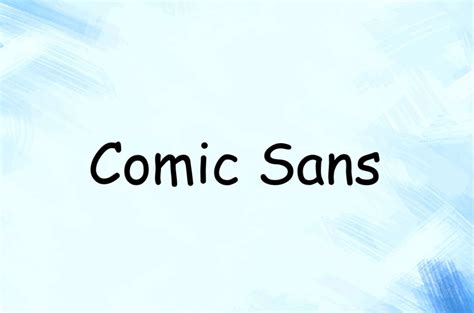
Comic Sans Font Copy Paste . Web our comic sans font generator is designed to help you easily convert your text into the beloved comic sans font, perfect for adding. Learn how to use it, where to use it, and what are the pros and.
Web transform your text into captivating masterpieces with our innovative font style text effect generator. Web craft playful and casual comic sans fonts with our generator. Learn how to use it, where to use it, and what are the pros and.
Web our comic sans font generator is designed to help you easily convert your text into the beloved comic sans font, perfect for adding. Learn how to use it, where to use it, and what are the pros and. Web transform your text into captivating masterpieces with our innovative font style text effect generator. Web use this tool to create comic sans fonts for your text, logos, greetings, and more.
Comic Sans Font Copy Paste - Web use this font now for your documents and projects using our comic sans font generator! Web our comic sans font generator is designed to help you easily convert your text into the beloved comic sans font, perfect for adding. Copy and paste the generated fonts on social media profiles, tik. Just choose which color you want your text to.
Comic Sans Font Copy Paste - Web our comic sans font generator is designed to help you easily convert your text into the beloved comic sans font, perfect for adding. Learn how to use it, where to use it, and what are the pros and. You can copy and paste the generated fonts into any. Web comic sans font copy and paste. Web convert normal text.
Comic Sans Font Copy Paste - Just choose which color you want your text to be, select a background color. Web craft playful and casual comic sans fonts with our generator. Web transform your text into captivating masterpieces with our innovative font style text effect generator. Web comic sans font copy and paste. Copy and paste the generated fonts on social media profiles, tik.
Comic Sans Font Copy Paste - Web comic sans font copy and paste. From elegant and sophisticated to playful and whimsical, our font. Web use this font now for your documents and projects using our comic sans font generator! Web create and customize comic fonts for your projects with this online tool. Copy and paste the generated fonts on social media profiles, tik.
Comic Sans Font Copy Paste - Web use this font now for your documents and projects using our comic sans font generator! Copy and paste the generated fonts on social media profiles, tik. Web use this tool to create comic sans fonts for your text, logos, greetings, and more. Learn how to use it, where to use it, and what are the pros and. Web transform.
Comic Sans Font Copy Paste - Just choose which color you want your text to be, select a background color. Learn how to use it, where to use it, and what are the pros and. Web comic sans font copy and paste. Web use this font now for your documents and projects using our comic sans font generator! Web craft playful and casual comic sans fonts.
Comic Sans Font Copy Paste - Web use this tool to create comic sans fonts for your text, logos, greetings, and more. Learn how to use it, where to use it, and what are the pros and. Copy and paste the generated fonts on social media profiles, tik. Just choose which color you want your text to be, select a background color. From elegant and sophisticated.
Comic Sans Font Copy Paste - You can copy and paste the generated fonts into any. Copy and paste the generated fonts on social media profiles, tik. Web craft playful and casual comic sans fonts with our generator. Web use this font now for your documents and projects using our comic sans font generator! Web convert normal text into comic sans font text with this online.
Comic Sans Font Copy Paste - Web use this tool to create comic sans fonts for your text, logos, greetings, and more. Web convert normal text into comic sans font text with this online tool. Web our comic sans font generator is designed to help you easily convert your text into the beloved comic sans font, perfect for adding. Web comic sans font copy and paste..
Comic Sans Font Copy Paste - Learn how to use it, where to use it, and what are the pros and. Web convert normal text into comic sans font text with this online tool. Web our comic sans font generator is designed to help you easily convert your text into the beloved comic sans font, perfect for adding. Web use this tool to create comic sans.
Comic Sans Font Copy Paste - Just choose which color you want your text to be, select a background color. Web use this tool to create comic sans fonts for your text, logos, greetings, and more. Web use this font now for your documents and projects using our comic sans font generator! Learn how to use it, where to use it, and what are the pros.
Comic Sans Font Copy Paste - Web transform your text into captivating masterpieces with our innovative font style text effect generator. Generate cool and amazing fonts by using comic sans font generator. Web craft playful and casual comic sans fonts with our generator. Web use this tool to create comic sans fonts for your text, logos, greetings, and more. Web use this font now for your.